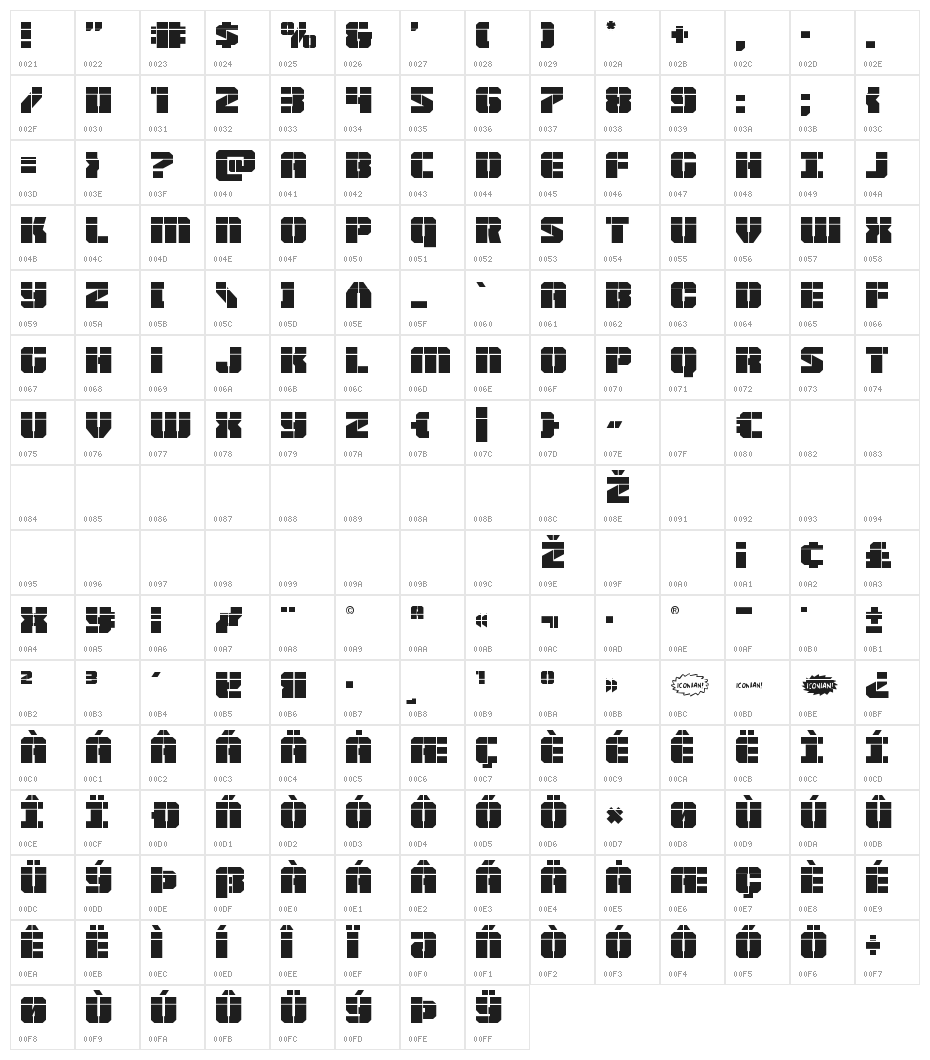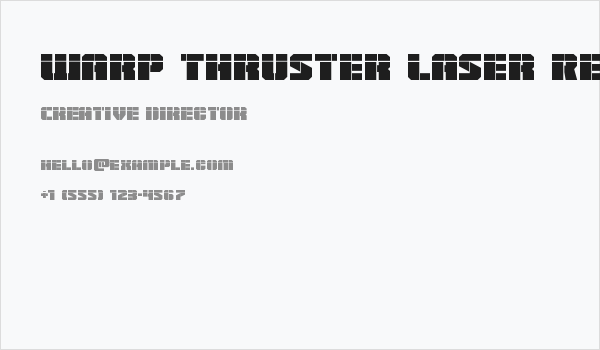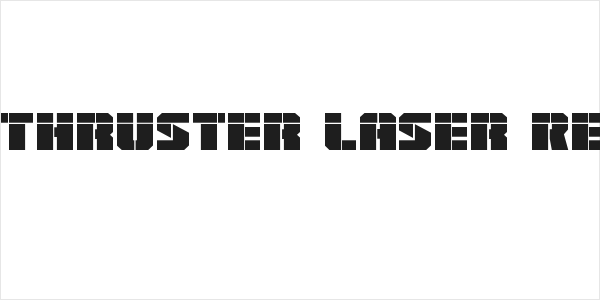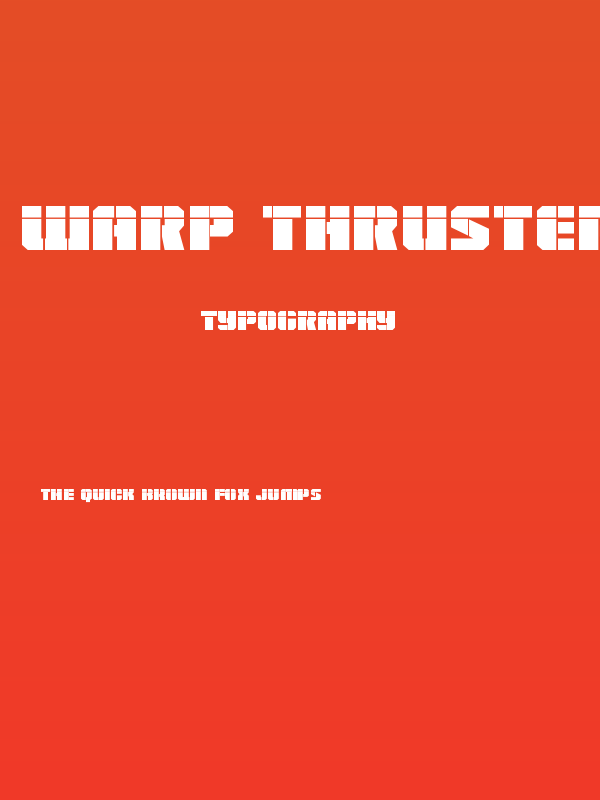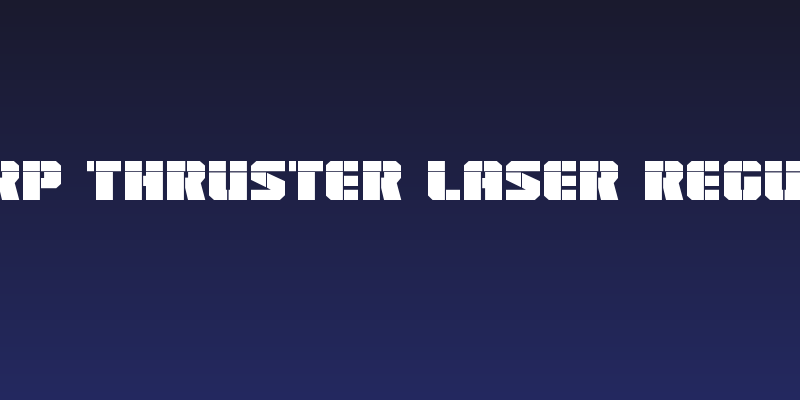
Warp Thruster Laser Regular Font
Warp Thruster Laser Regular Description
This font features a bold, futuristic design with a blocky, geometric structure. Each character is composed of solid, angular shapes that create a sense of strength and modernity. The font's style is reminiscent of digital displays or sci-fi themes, making it ideal for projects that require a technological or space-age aesthetic. The characters are uniformly wide, with consistent stroke thickness, contributing to its bold appearance. The overall design is highly distinctive, ensuring that text set in this font will stand out prominently.
| Proposed Projects | Ideal for video game titles, sci-fi movie posters, technology branding, and futuristic-themed events. |